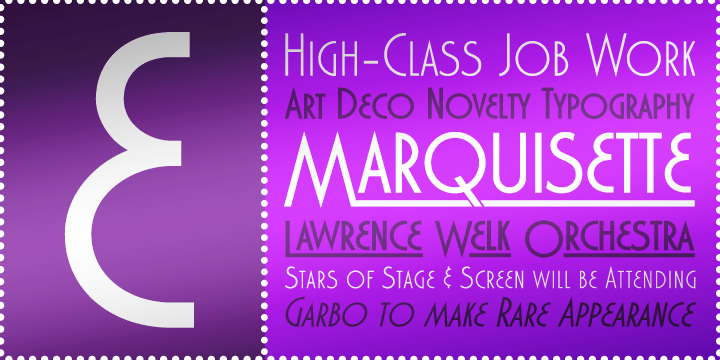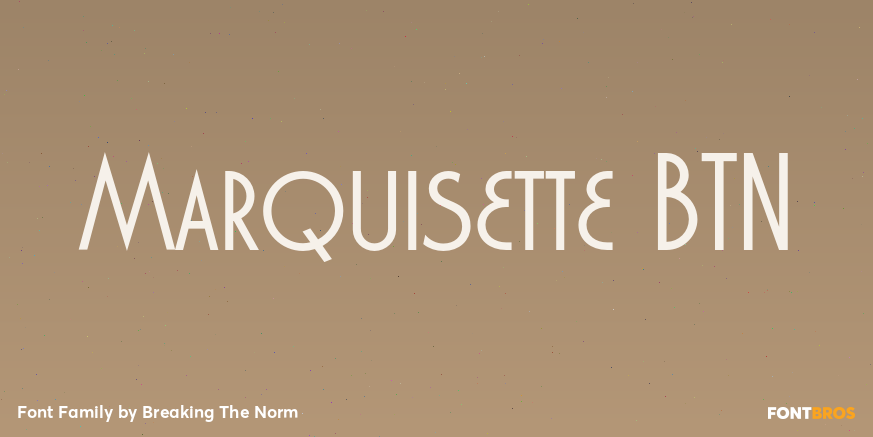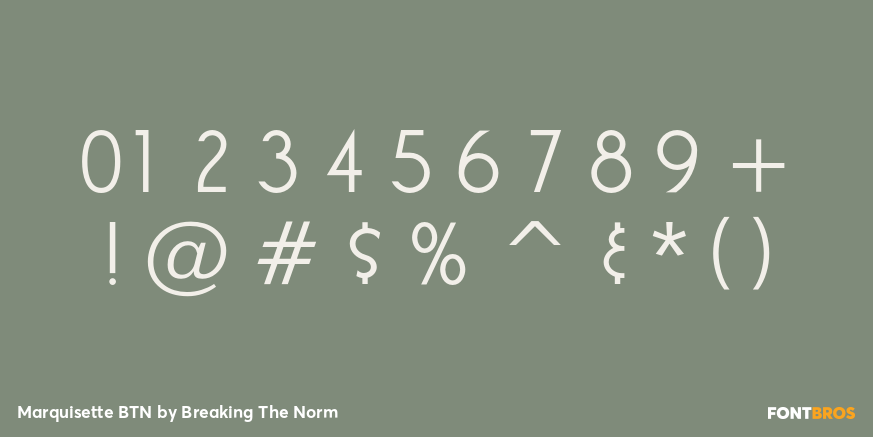
Marquisette BTN
Font Family by Breaking The Norm
Marquisette BTN is a Deco-inspired display family with elegant vintage flair and a strong caps-driven personality. Its stylish structure evokes the glamour of early twentieth-century commercial lettering, making it especially effective for headlines, logos, posters, packaging, signage, and branding that call for a refined retro voice. The family includes a range of weights and oblique styles, along with lined variants that add extra graphic sophistication for more decorative display work. Marquisette BTN brings together classic Art Deco attitude, readability, and visual flexibility in a family built for polished headline design.